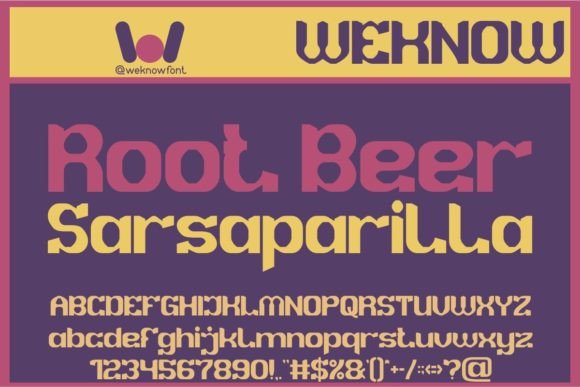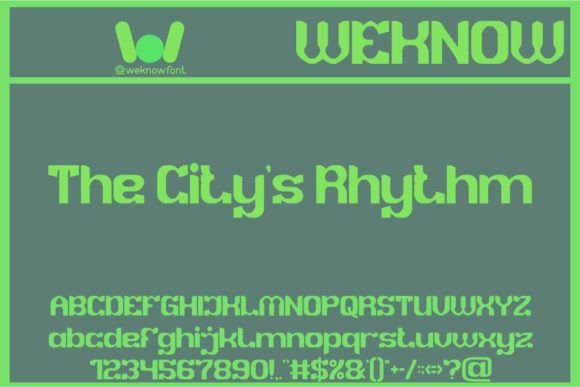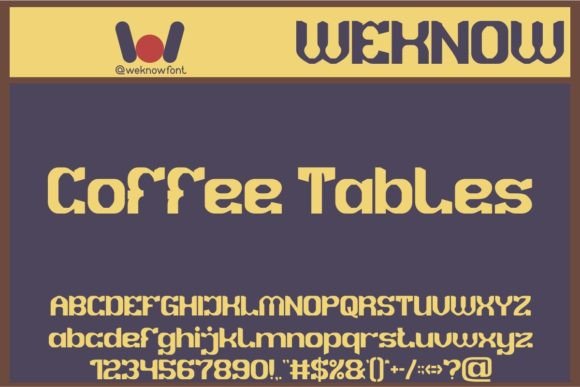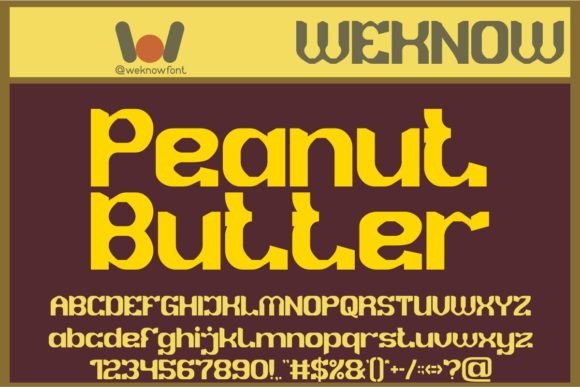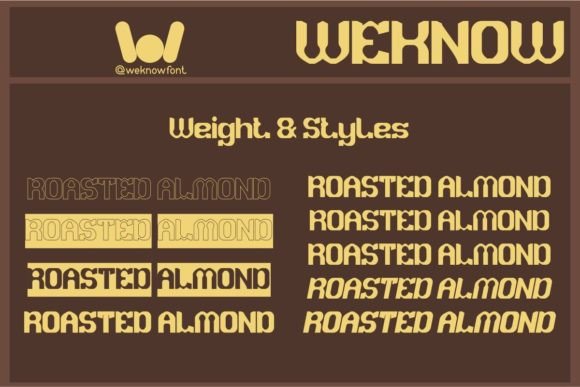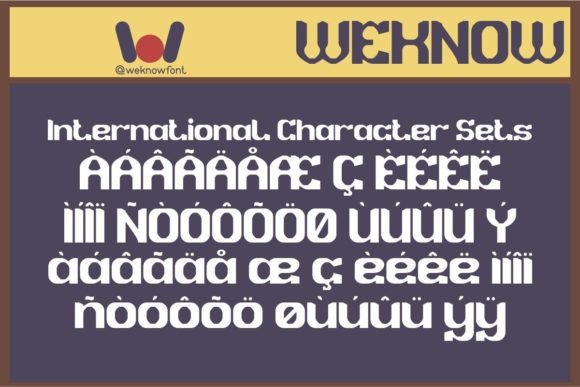
Introduction to Roasted Almond Font
You know that feeling when you’re brainstorming ideas for a creative project and suddenly, everything clicks into place? That’s what happens when you unleash the Roasted Almond Font onto your design canvas. This extraordinary display font is a game-changer, effortlessly elevating your work to new heights. With its perfect blend of classic and vintage styles, you’ll be able to craft a unique aesthetic that sets you apart from the crowd.
As a designer, you’re constantly on the lookout for high-quality design resources that can help you bring your vision to life. That’s where the Roasted Almond Font comes in – a versatile and free download that’s perfect for logos, logotypes, headlines, and more. Its transparent background makes it easy to incorporate into any design project, and its sophisticated style is sure to make a lasting impression.
Whether you’re working on a corporate identity, a music album cover, or a comic book series, the Roasted Almond Font is an invaluable asset that will take your creative project to the next level. So why settle for ordinary when you can make a statement with the Roasted Almond Font?
Key Features of Roasted Almond Font
- High-quality design resource perfect for creative projects, offering a unique and stylish look.
- Includes a transparent background, allowing for seamless integration into various design elements.
- Features a modern and elegant design, ideal for use in branding, logos, and other visual identity projects.
Honest Review: Roasted Almond Font
I recently came across the Roasted Almond Font while searching for a unique design resource for my creative project. I was excited to dive in and see what this font had to offer.
✨ What works well: The Roasted Almond Font is a high-quality design resource that offers a lot of versatility. It’s perfect for creative projects that require a elegant and sophisticated look. The font is available for free download, which is a definite bonus for designers on a budget. The font also features a transparent background, making it easy to customize and integrate into your design.
- Features a transparent background
⚠️ Limitations: While the Roasted Almond Font is a great resource, it may not be suitable for every design project. The font is a bit ornate, which may not be ideal for projects that require a more minimalist look. Additionally, the font may not be as widely compatible as some other design resources.
Overall, I’m really impressed with the Roasted Almond Font. It’s a great addition to any designer’s toolkit, and I would definitely recommend it to others.
Tips for Getting the Most Out of Roasted Almond Font
For optimal results, use the Roasted Almond Font on a transparent background to ensure a clean and professional design. You can also experiment with different font sizes and styles to add visual interest to your creative project.
The Roasted Almond Font is suitable for a variety of design projects, including logos, brochures, business cards, and social media graphics. Its high-quality design and transparent background make it a popular choice for designers and non-designers alike.